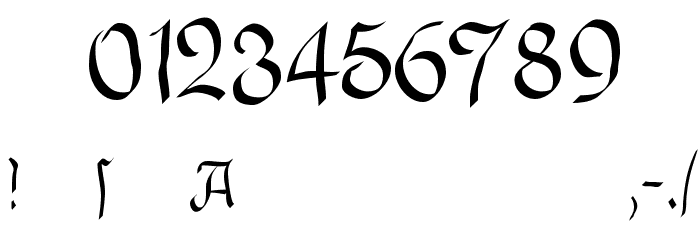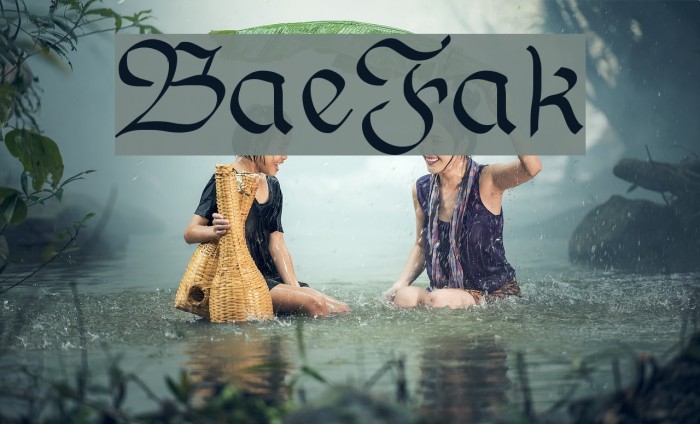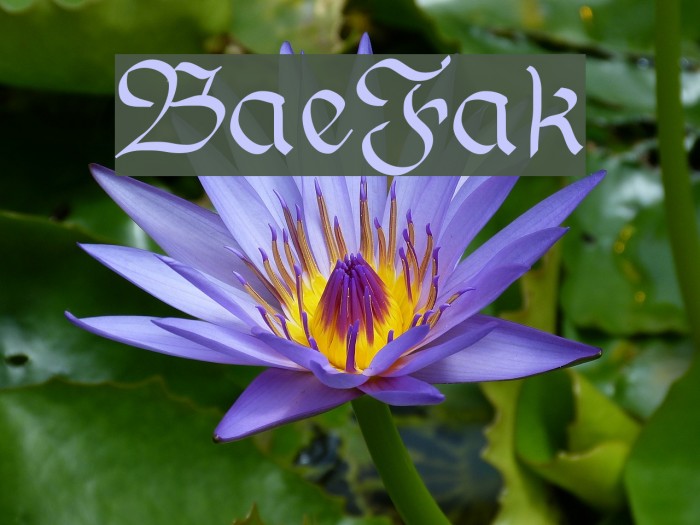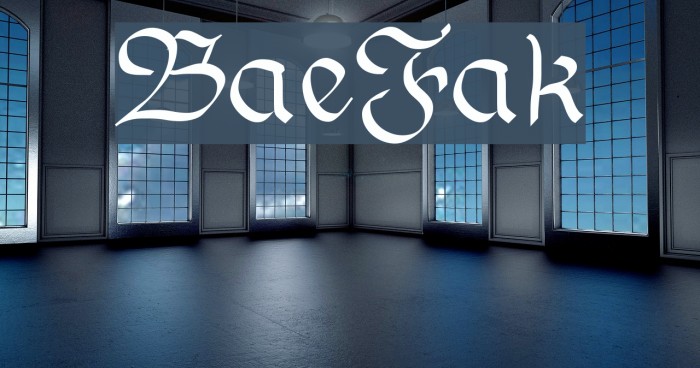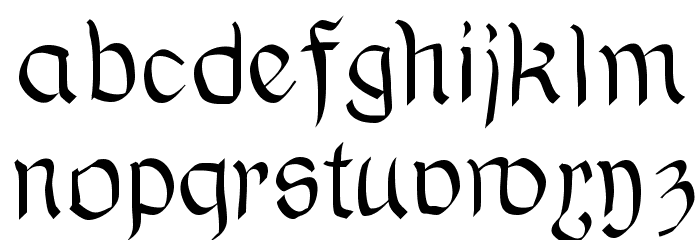
BauernFraktur Font
This font embodies the traditional elegance and intricate detailing of Blackletter typography. Each character is crafted with sharp, angular strokes and dramatic curves, reminiscent of medieval script. The uppercase letters are particularly ornate, featuring elaborate flourishes that enhance their visual impact. The lowercase letters maintain a consistent style, with a slightly more subdued design that complements the uppercase set. Numbers and special characters are designed with the same attention to detail, ensuring a cohesive look across all elements. This font is perfect for projects that require a historical or gothic aesthetic, offering a sense of gravitas and sophistication.
A traditional Blackletter font with sharp, angular strokes and intricate detailing.